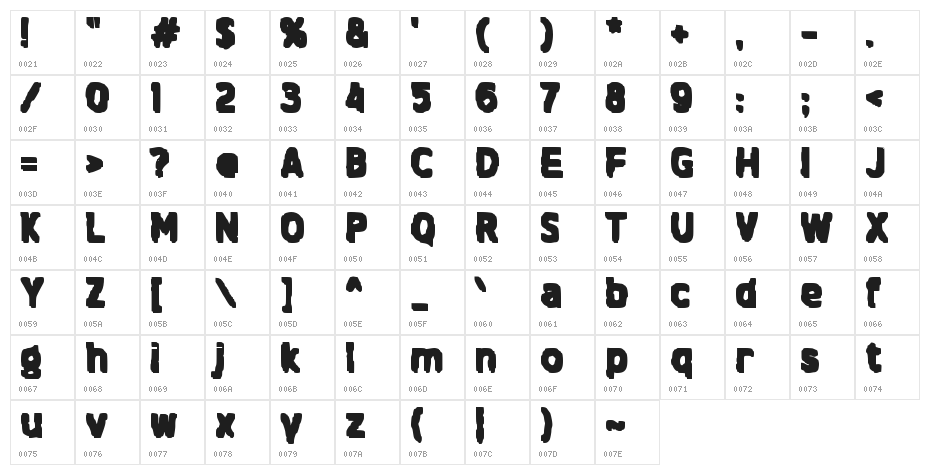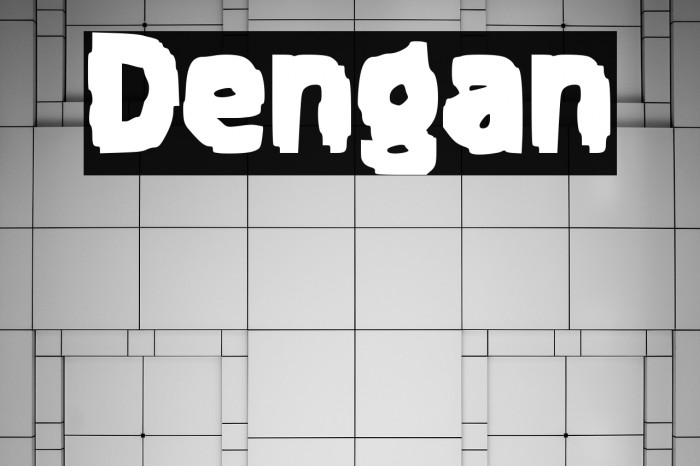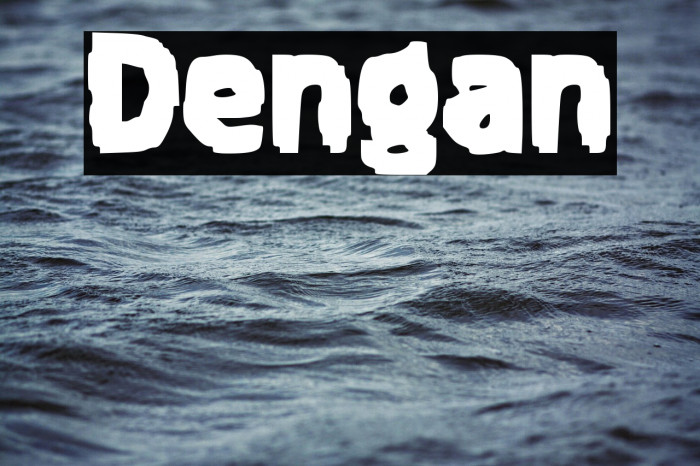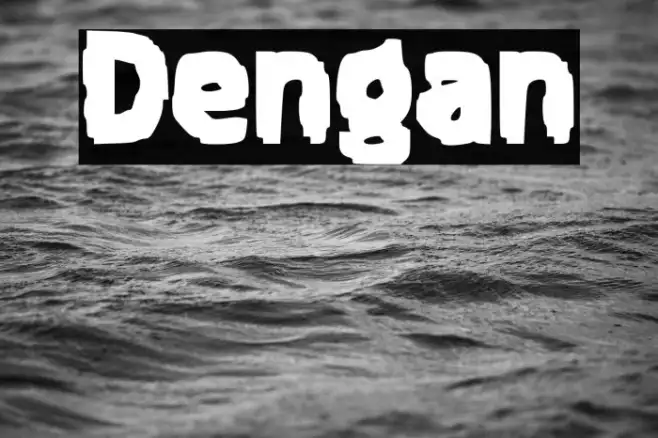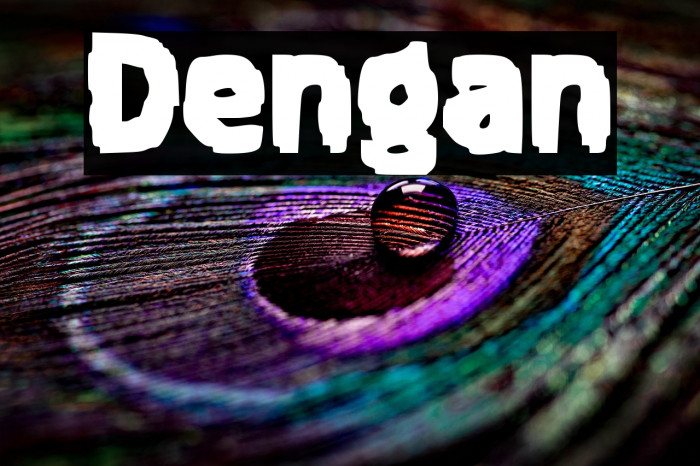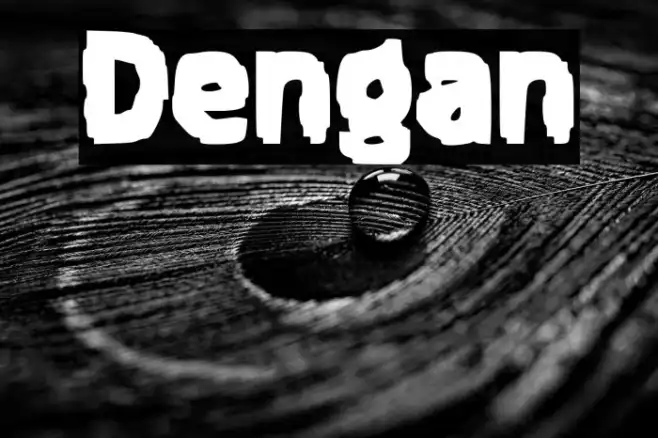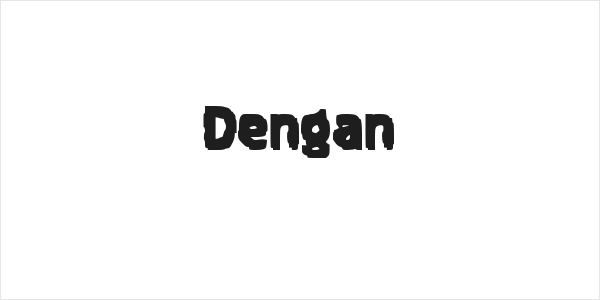
Dengan Font
Dengan Description
This font features a bold and playful style with a distinctly irregular and hand-drawn appearance. The characters are thick and chunky, with uneven edges that give them a lively and dynamic feel. The uppercase and lowercase letters maintain a consistent weight, contributing to a cohesive look. The numbers and special characters follow the same design principles, ensuring uniformity across all glyphs. This font's unique style makes it stand out, offering a sense of creativity and fun. It's perfect for projects that require a touch of whimsy and individuality.
Overall StylePlayful, Creative
Proposed ProjectsIdeal for children's books, playful branding, posters, and creative projects.